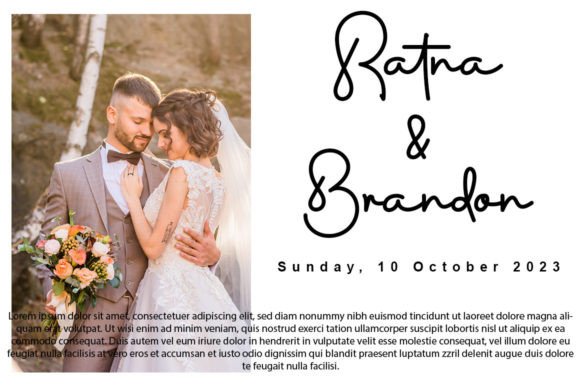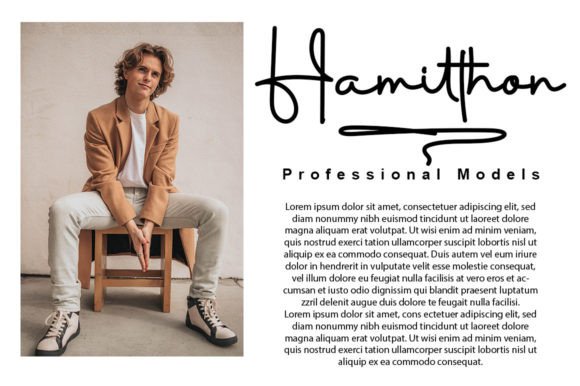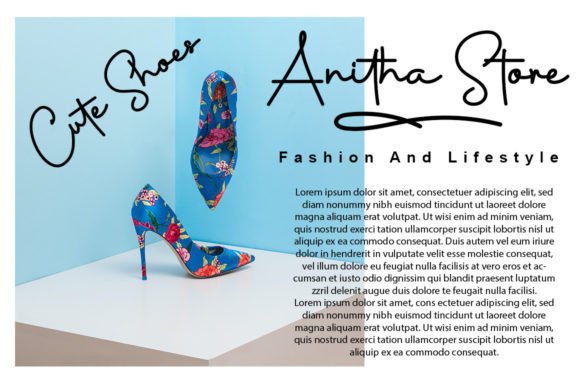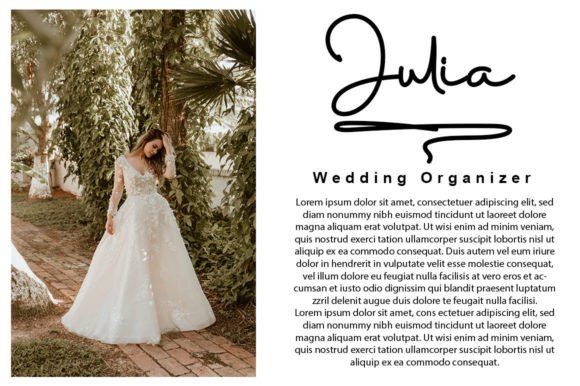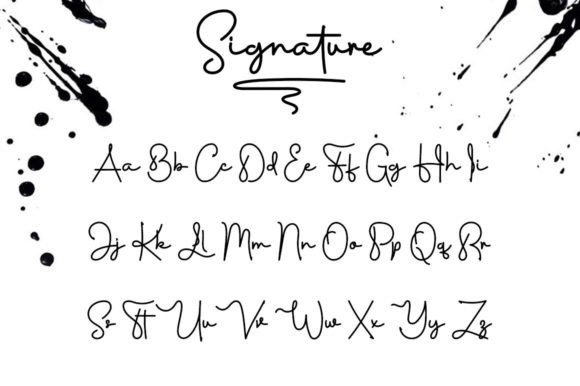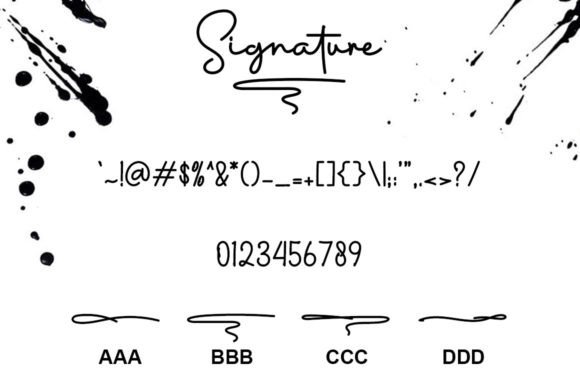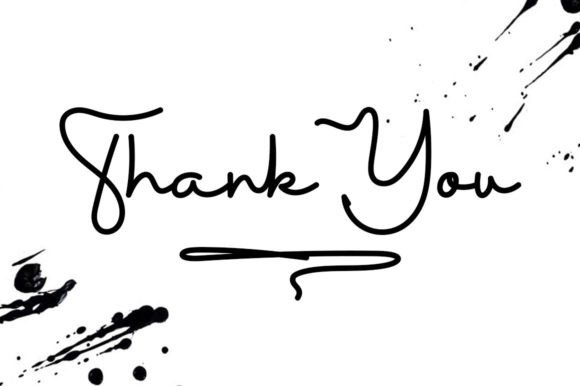
Elegant Calligraphy Script for Stylish Design Projects
If you’re searching for a beautiful typeface that brings class and charm to your creative work, this elegant calligraphy script is an excellent choice. With flowing strokes and stunning swashes, it adds sophistication to branding, invitations, and artistic designs.
Whether you’re designing for personal use or client work, this font gives your text a refined and professional feel.
A Signature-Style Script with Swashes
This script was designed with care and elegance in mind. Its clean curves and fluid lines reflect the beauty of traditional penmanship while offering the usability of modern digital fonts. It includes a variety of swashes and alternate glyphs that allow you to customize every word with ease.
Use this elegant calligraphy script for:
• Bridal stationery and event invitations
• Upscale branding and packaging
• Printable quotes and wall art
• Logo design with a personal touch
• Greeting cards and name tags
• Social media visuals and influencer kits
The font strikes the perfect balance between readability and artistry, making it ideal for both digital and print applications.
Features That Make It Shine
• Graceful handwritten style
• Includes stylish swashes for added elegance
• Compatible with print and web design
This elegant calligraphy script is especially helpful for those creating templates, digital products, or branding kits. It adds timeless appeal and professional polish to anything you create.
Perfect for Downloadable Projects and Small Business Branding
If you sell digital products or customized design work, this font can quickly become a favorite in your toolkit. From Etsy listings to social media graphics, it performs beautifully.
Many users apply this typeface in:
• Wedding signage
• Boutique packaging
• Business logos
• Printable stationery
• Downloadable gift tags
• Watermarks and signature overlays
The result? A cohesive, polished design every time.
With its flowing forms and artistic flair, this elegant calligraphy script brings charm to every letter you type. Whether you’re creating for business or pleasure, it helps your message stand out with class and creativity.